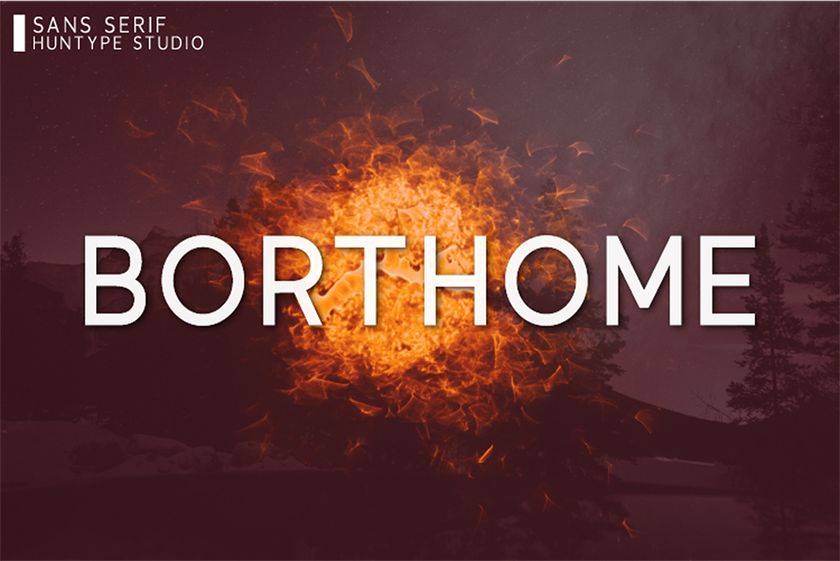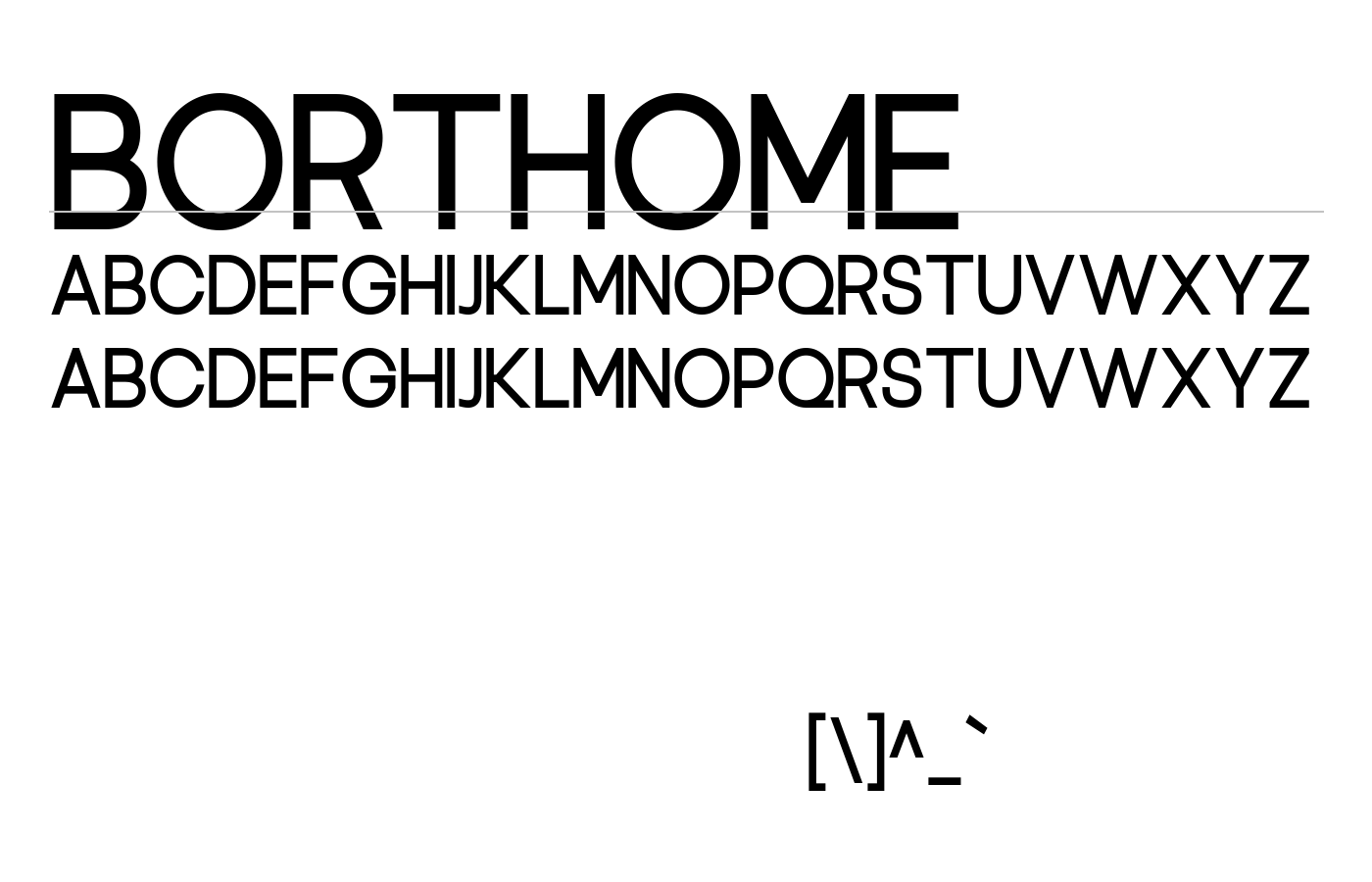
Borthome is a sleek, modern sans serif font characterized by its clean lines, uniform stroke weight, and geometric shapes. It conveys a contemporary and professional feel, making it ideal for branding, editorial headlines, and digital use where clarity and sophistication are key. Its bold and narrow structure ensures strong visual impact, perfect for creating a distinctive and stylish look.
Borthome Font
About Borthome Font